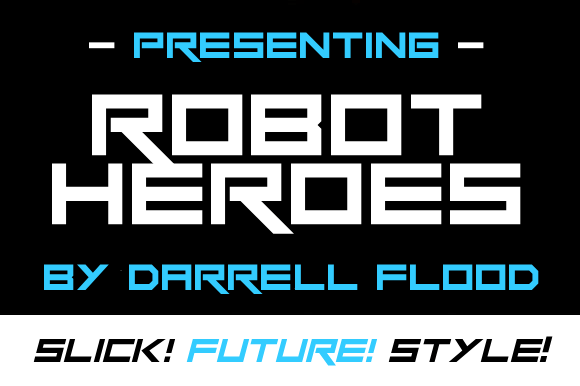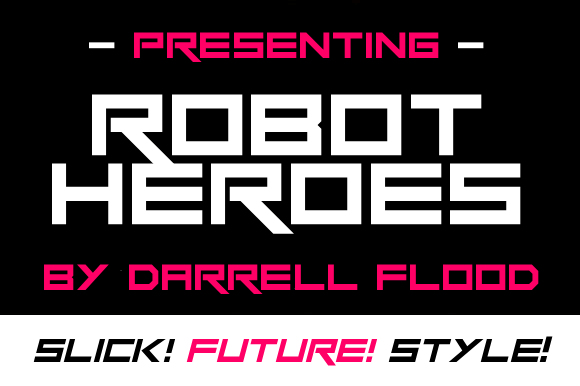
Introduction to Robot Heroes Font
A futuristic, dynamic font in a slick sci-fi style.
Perfect for alien encounters, cutting edge tech and modern music themes .